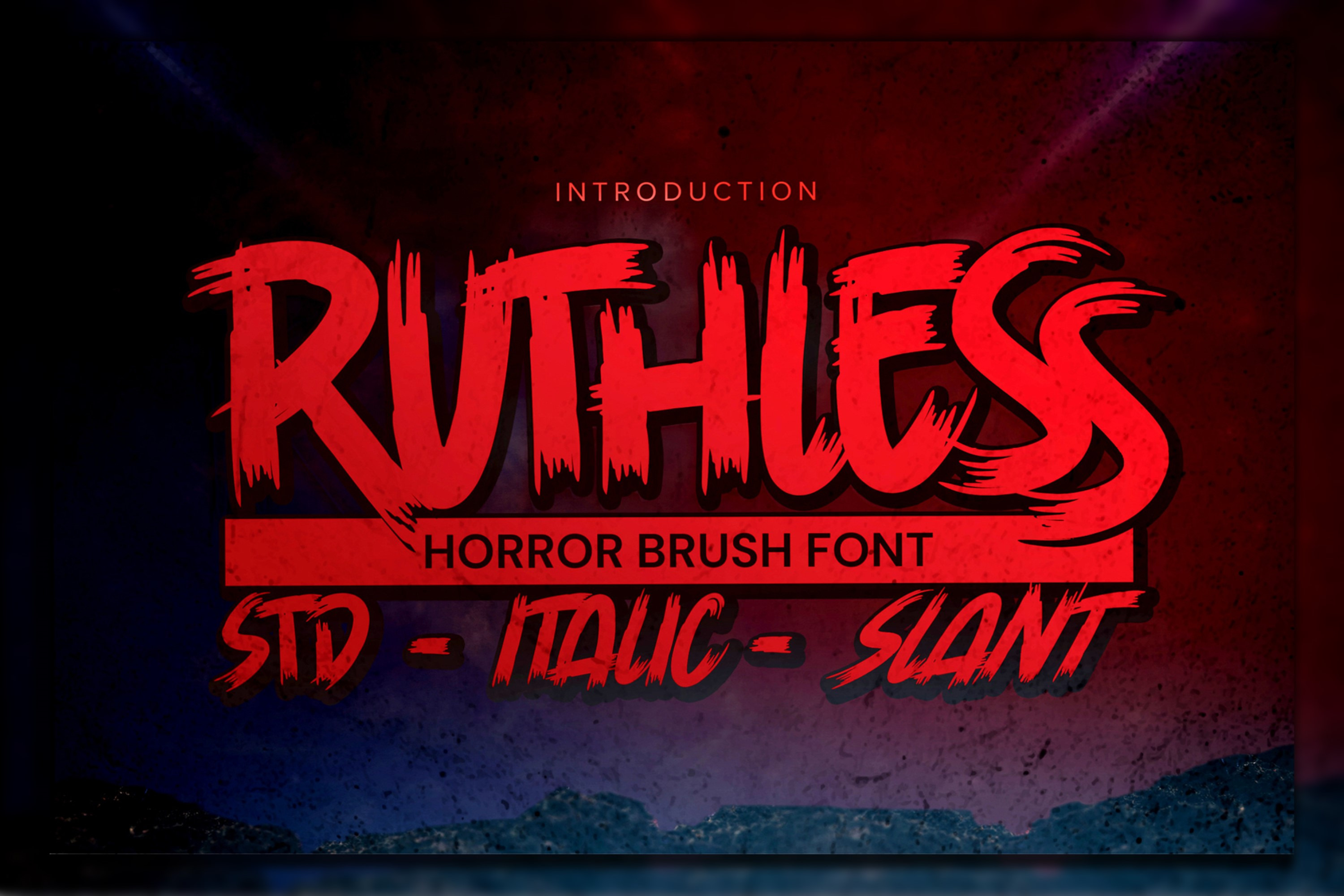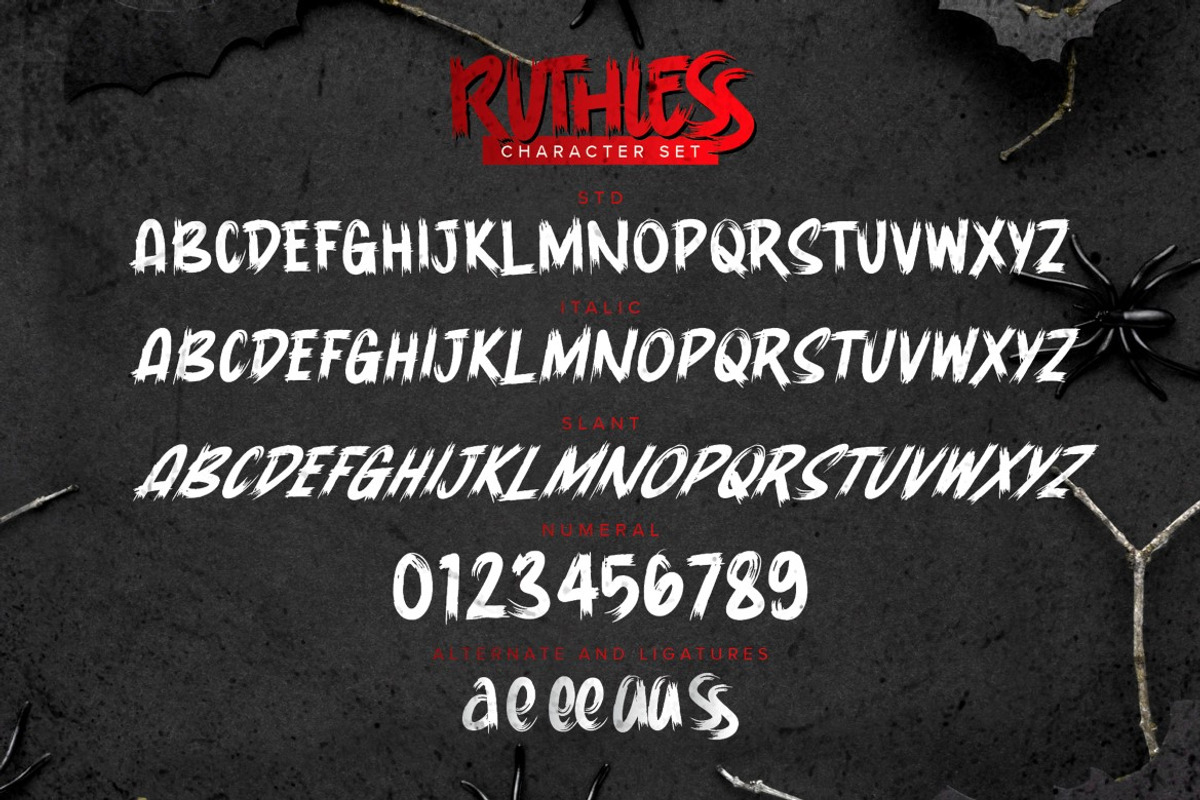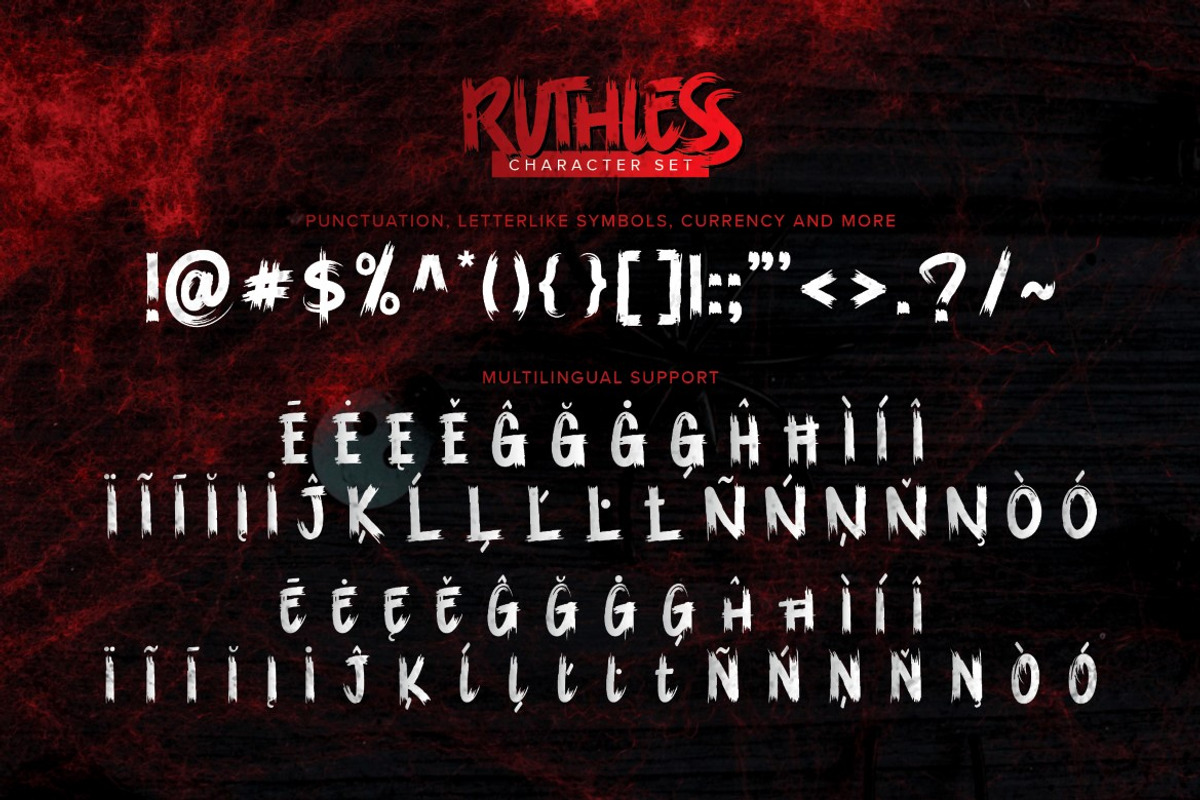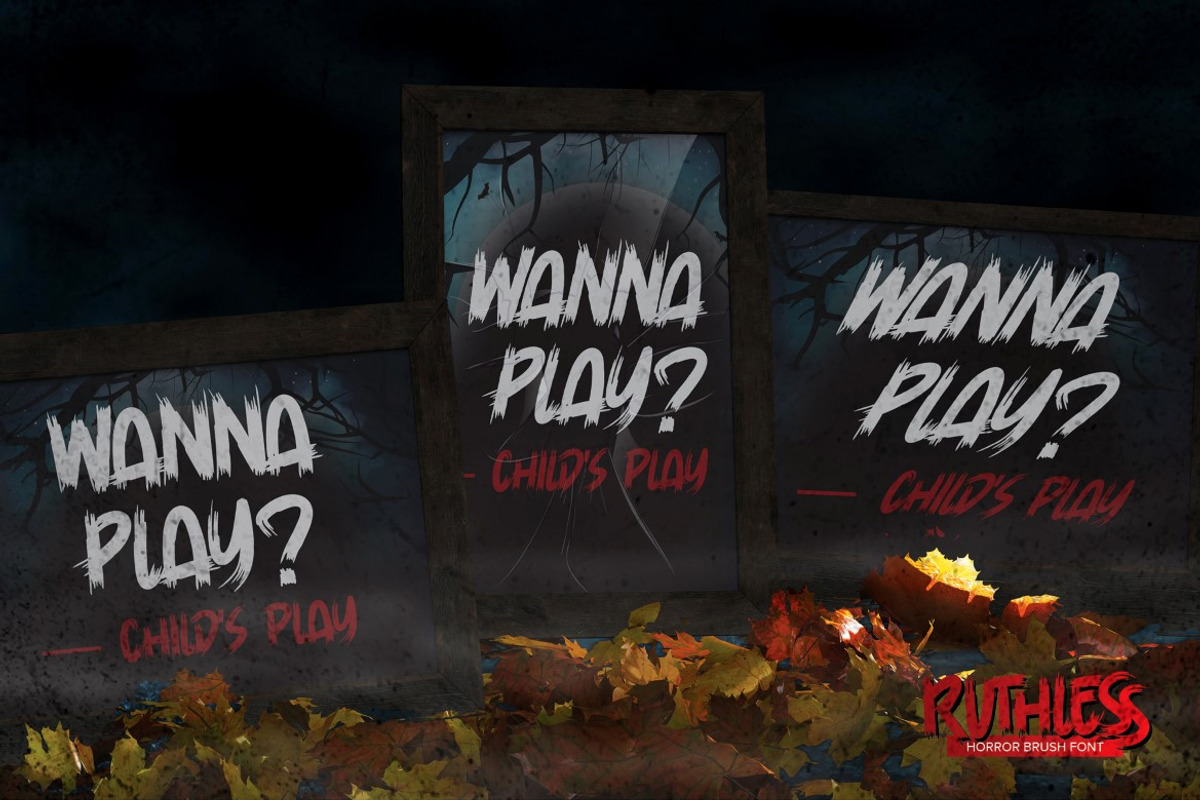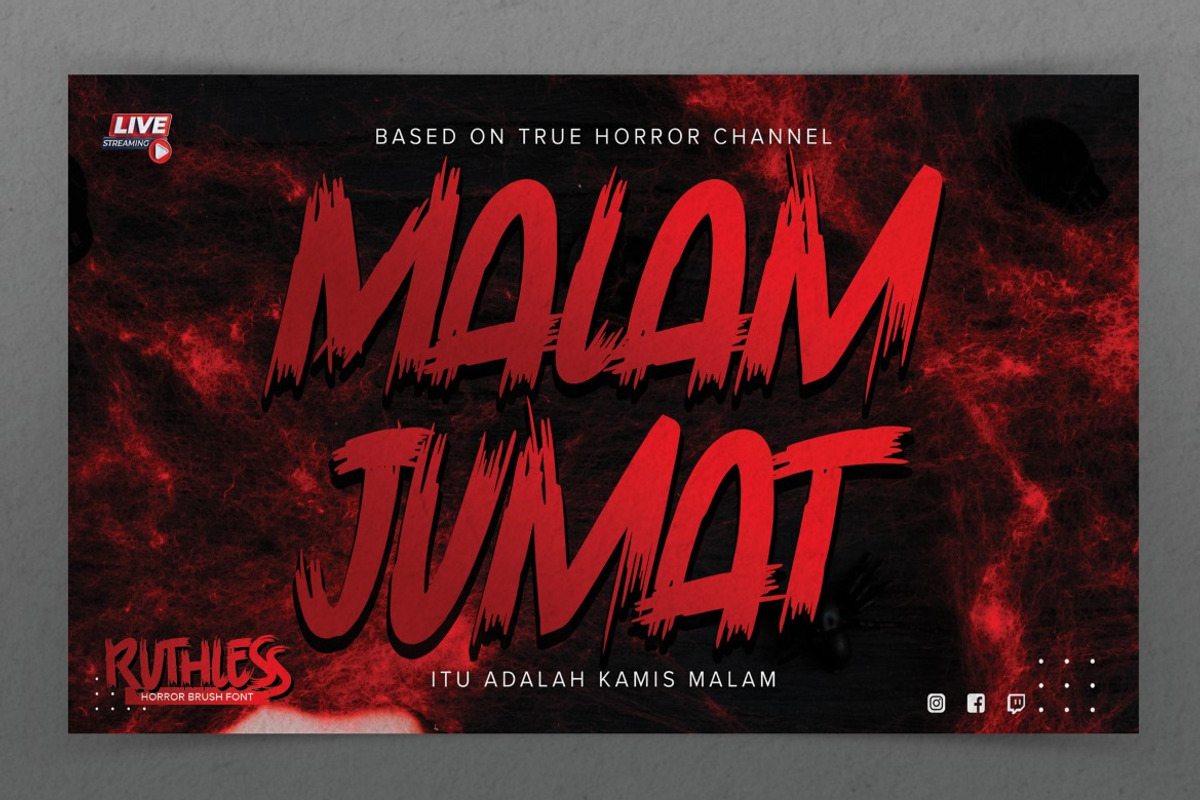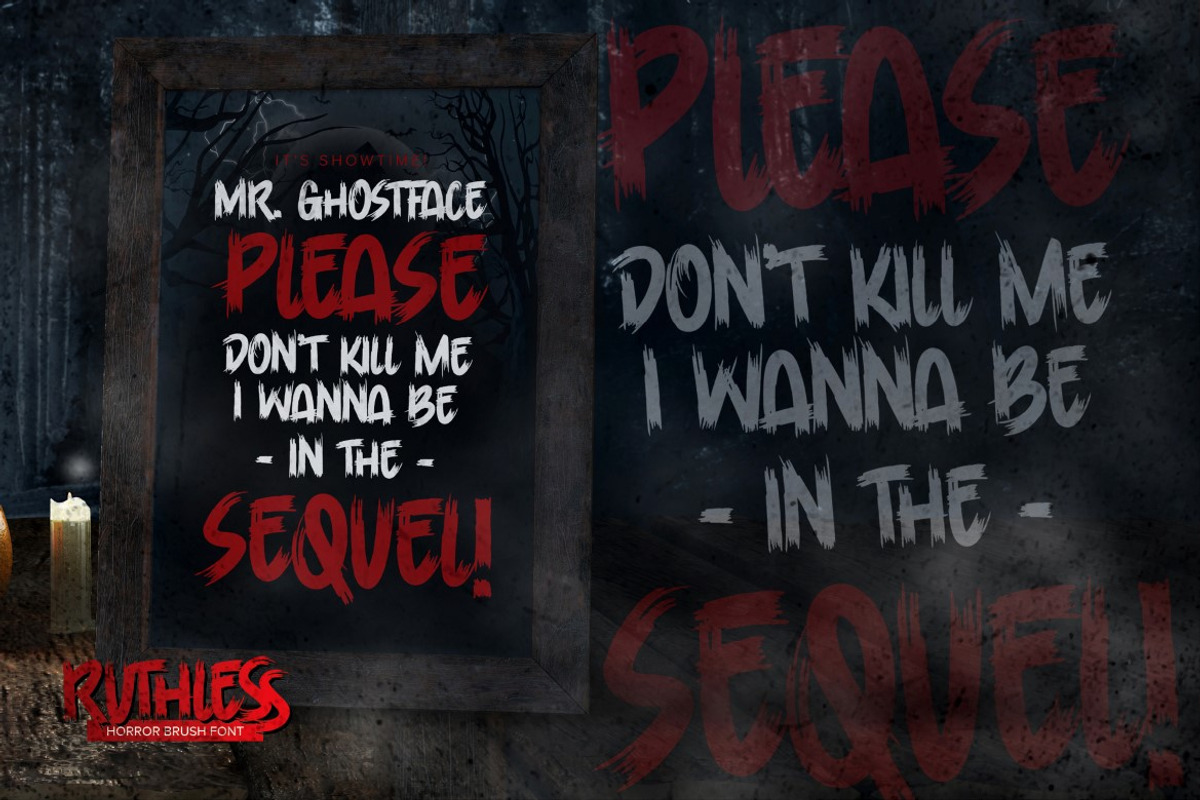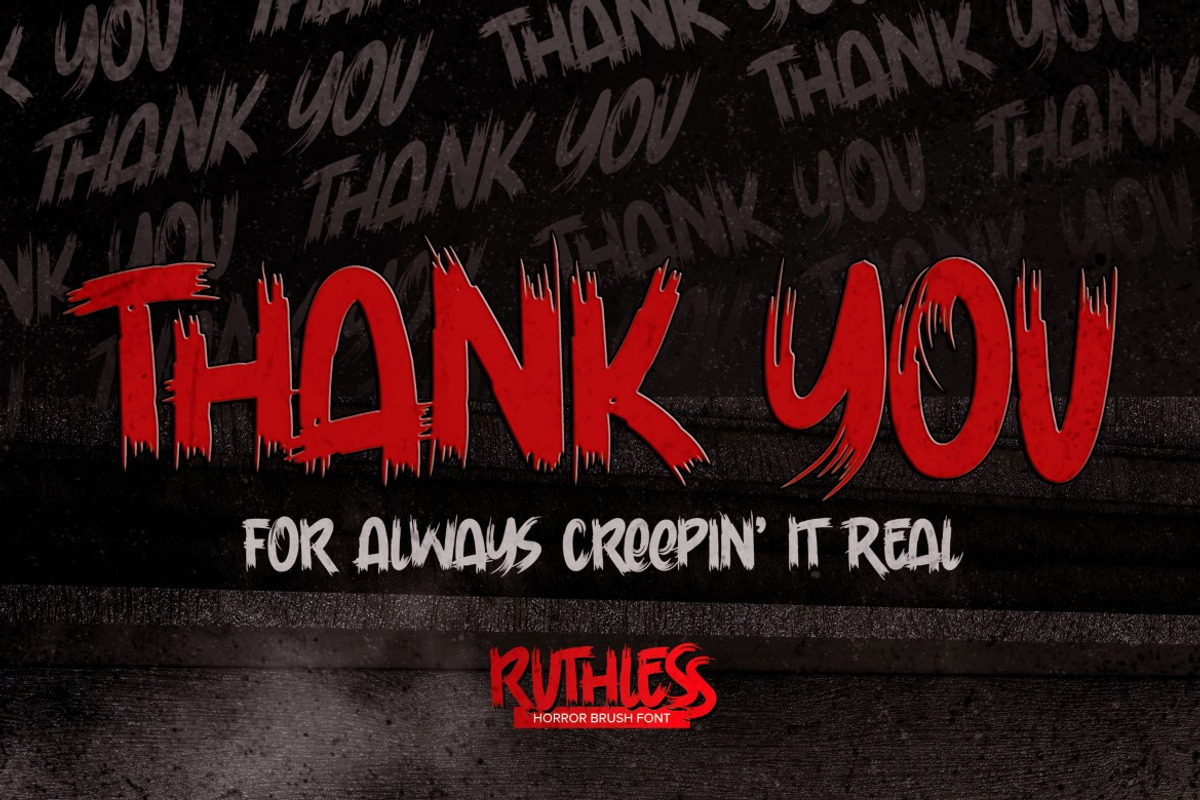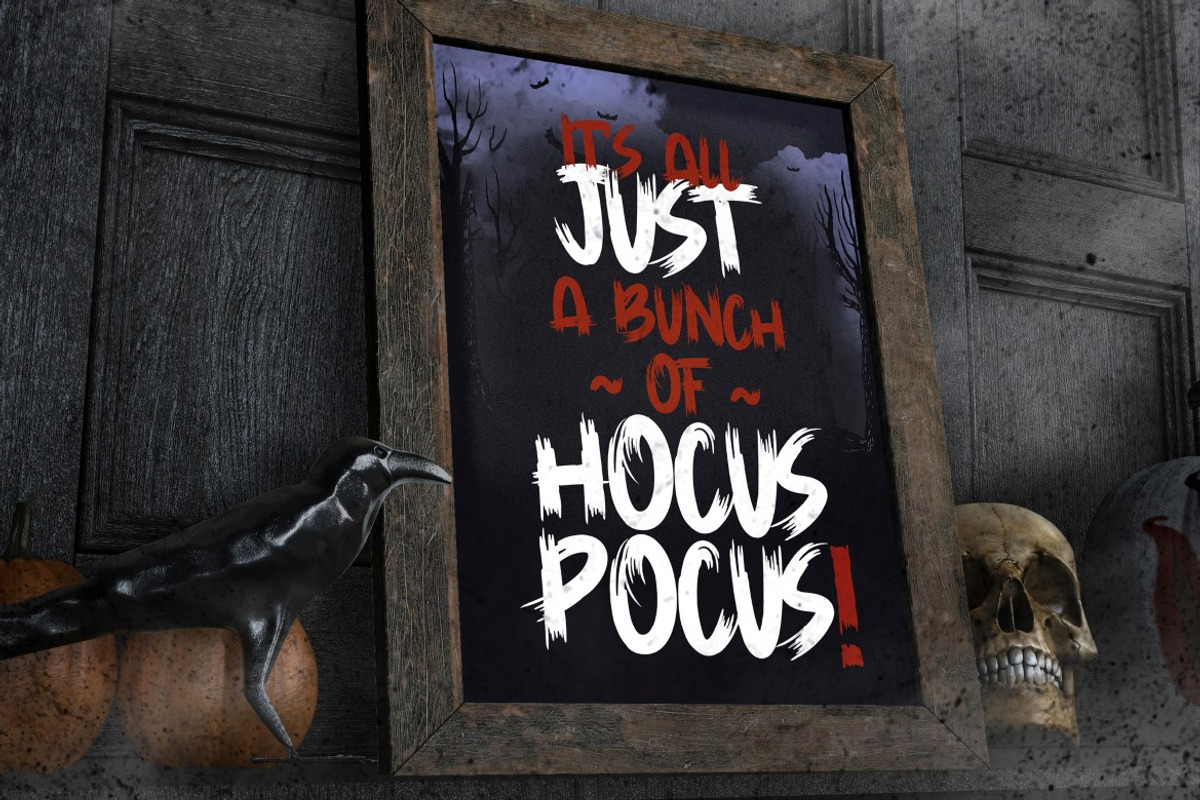
Ruthless - Horror Brush Font
Introducing of our new product Ruthless Horror brush Font Rough Brush Font with ligature and Multilanguage support.
This is a Rough Brush Typeface that is written casually and quickly.
this font are made with brushes on Procreate. Then crafted carefully drawn into vector format.
That is why Ruthless has Rough and strong characteristic more natural look to your text with a more modern look to your text. You can activate Ligature and Alternative glyphs OpenType panel . Ruthless is perfect for homeware designs,branding projects, Logo design, Quotes product packaging,and cartoon.
- Ligature glyphs
- Alternative glyphs